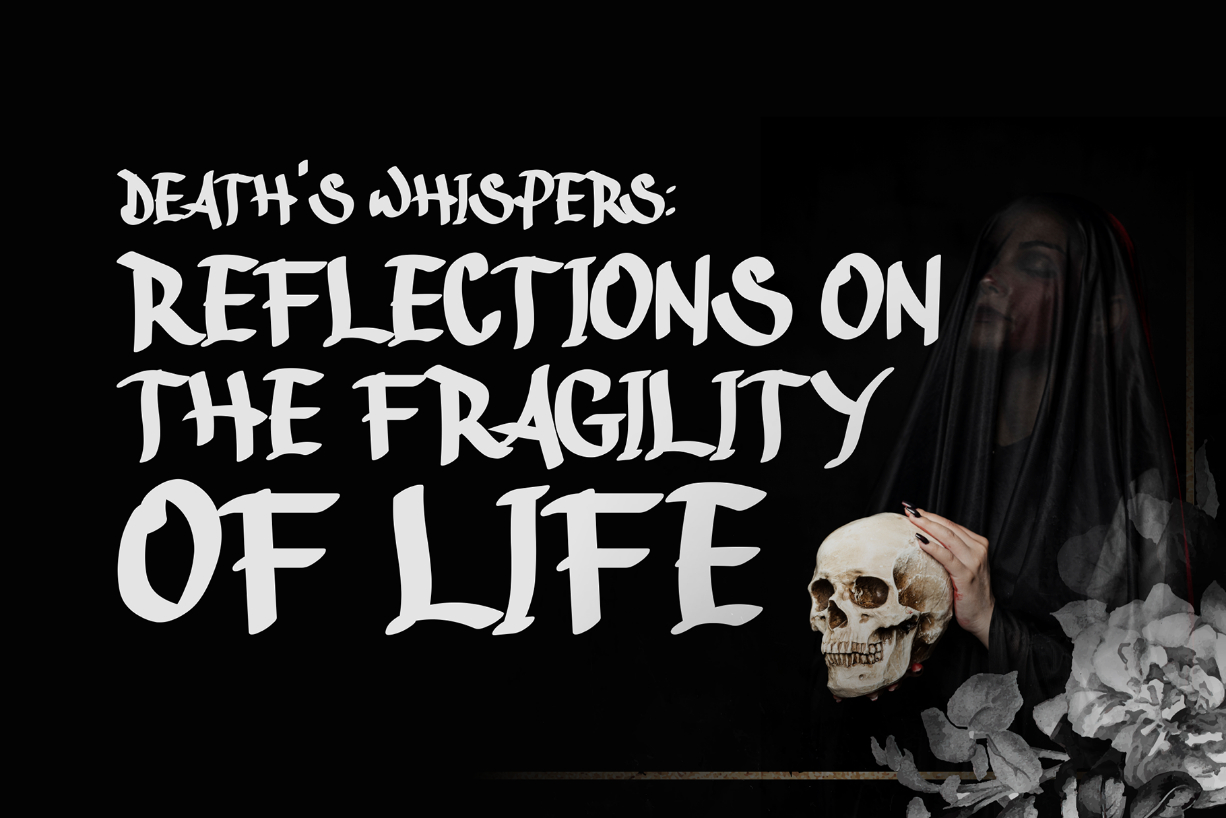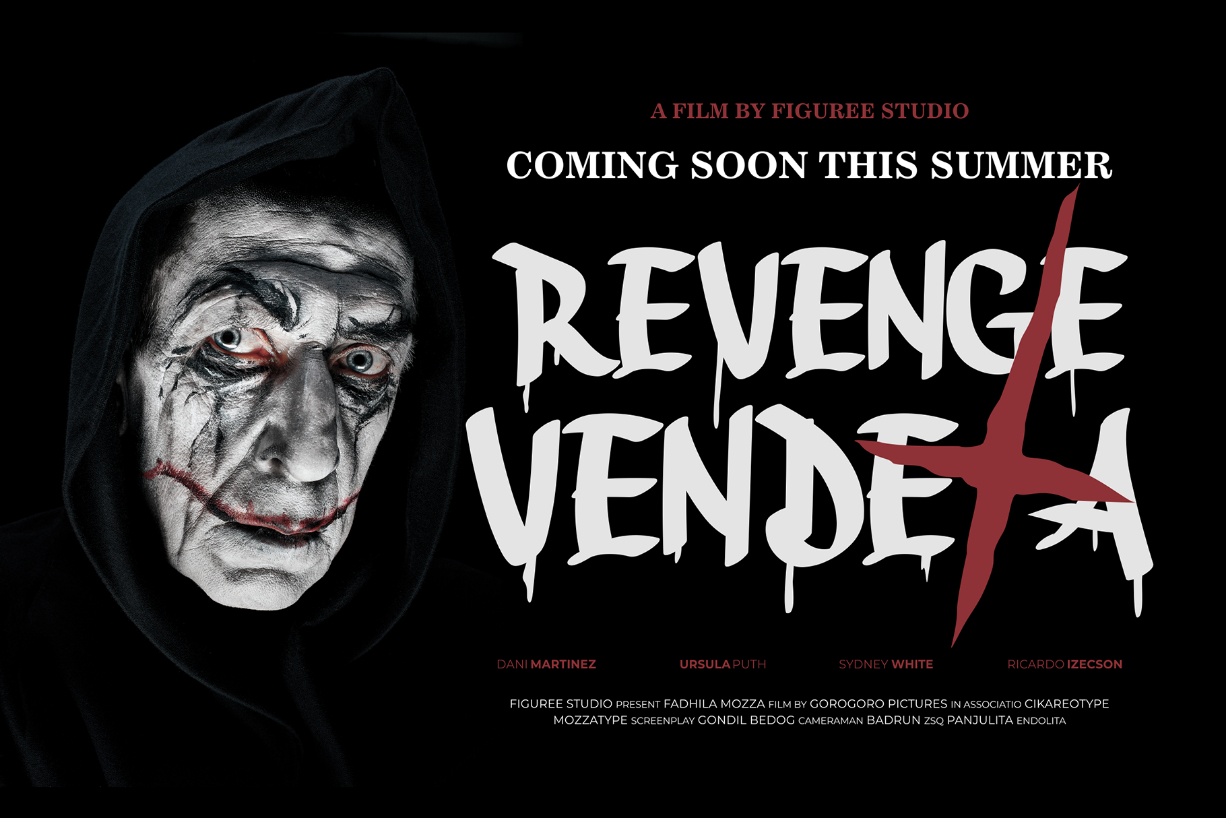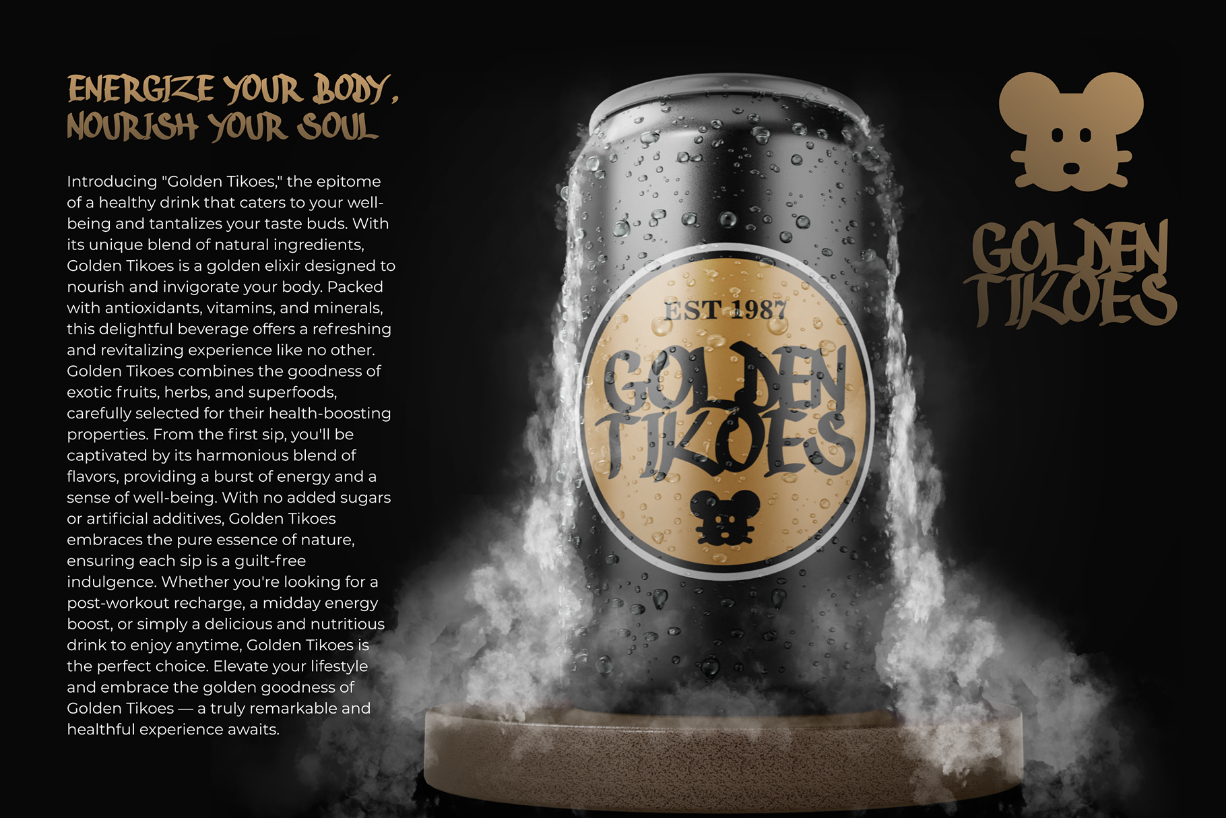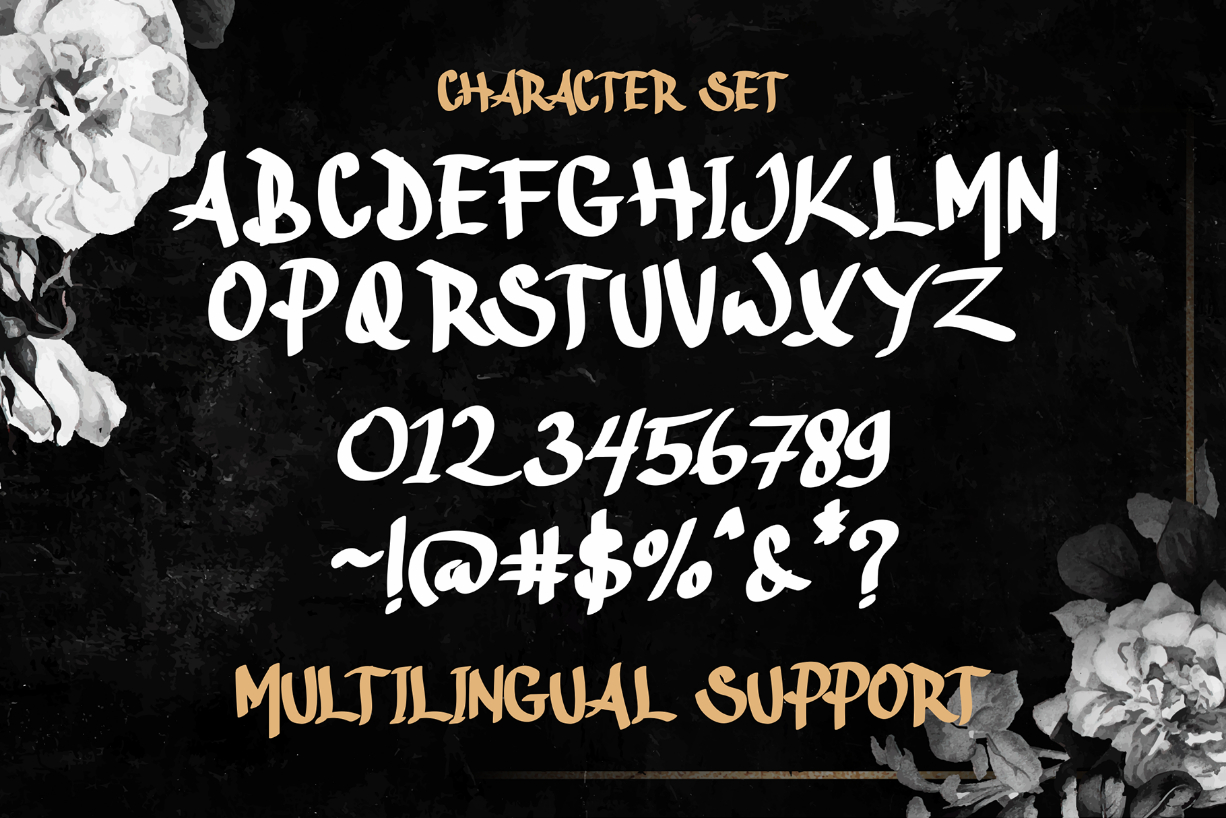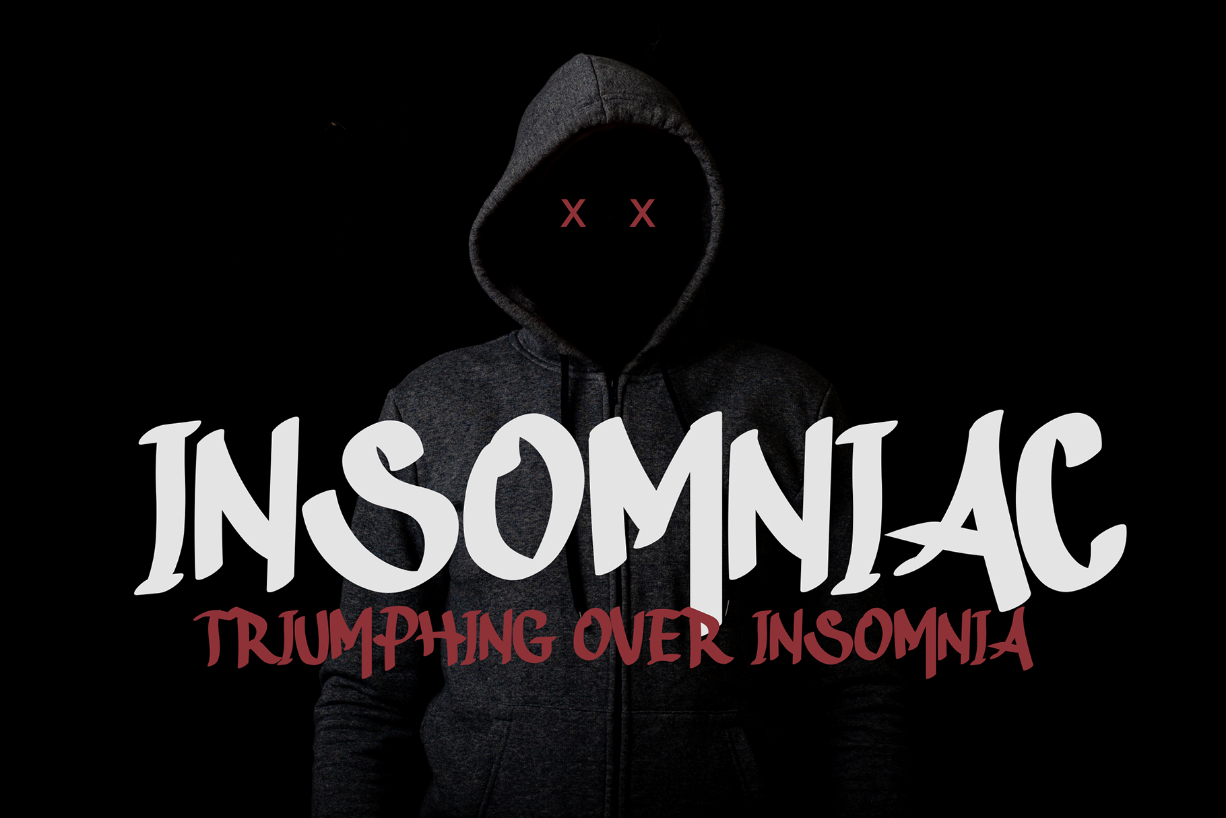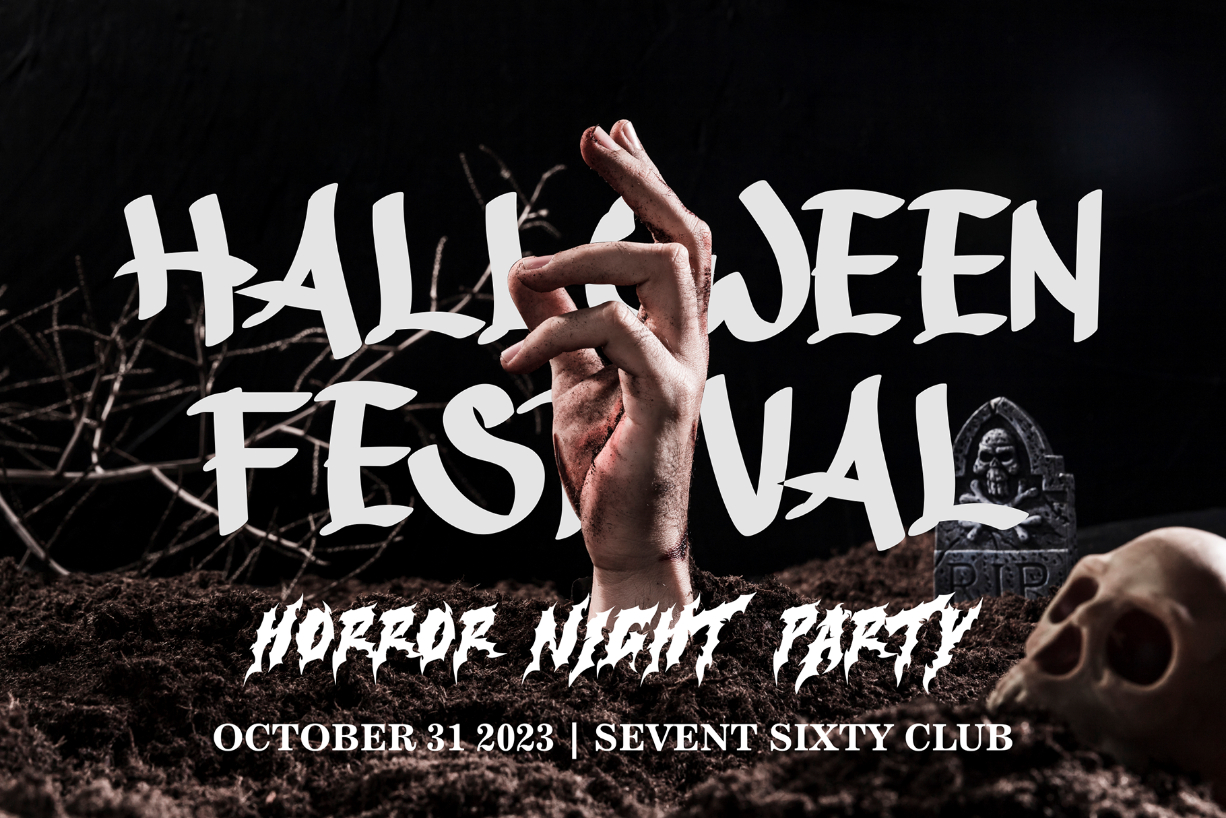
Funeral Daggers Font
About Funeral Daggers Font
Funeral Daggers is a chilling and macabre horror graffiti tag font that captures the essence of dark and sinister aesthetics. With its sharp and jagged letterforms, this font evokes a sense of fear and unease, perfect for horror-themed designs. Each letter is designed with twisted and distorted elements, resembling the ominous strokes of a graffiti tag.